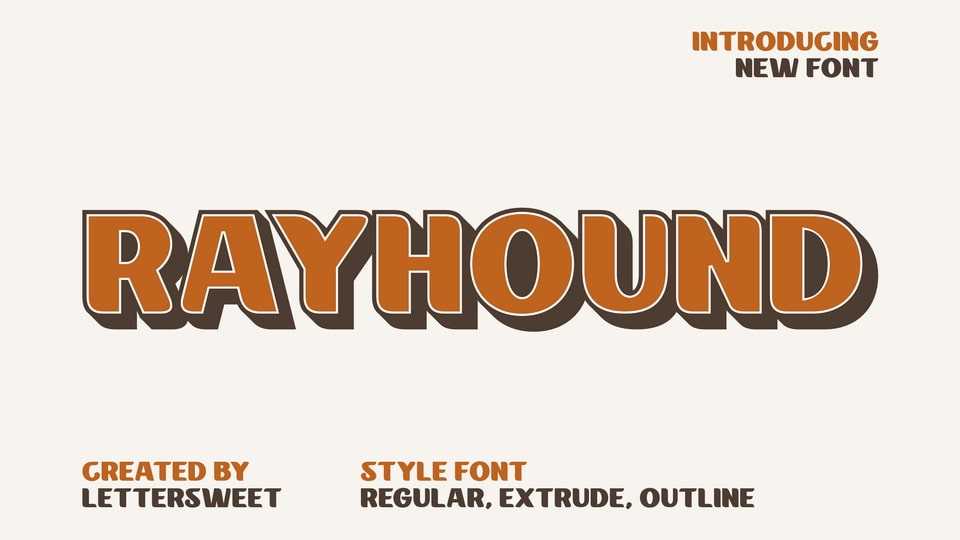
Download Rayhound font, an exquisitely curated sans serif display typeface. Tailored to command attention, Rayhound is designed to make your headlines distinct, infusing individuality into your designs.